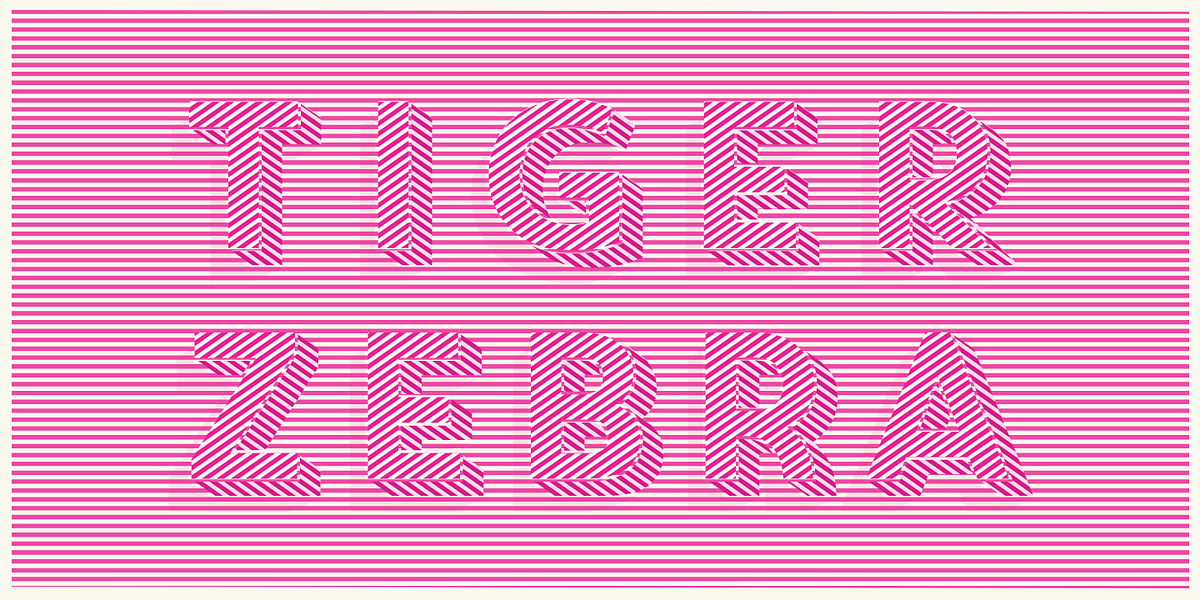
Core Circus
Core Circus is a bold and playful geometric display font characterized by its unique 3D layered effect. The typeface features multiple effects like outlines, dots, and shadows, creating a textured and visually striking appearance. It's designed for all caps and offers various stylistic alternatives for closed counter styles. With endless combination possibilities, Core Circus is suitable for headlines, branding, posters, and any project requiring a charming and distinctive visual impact.